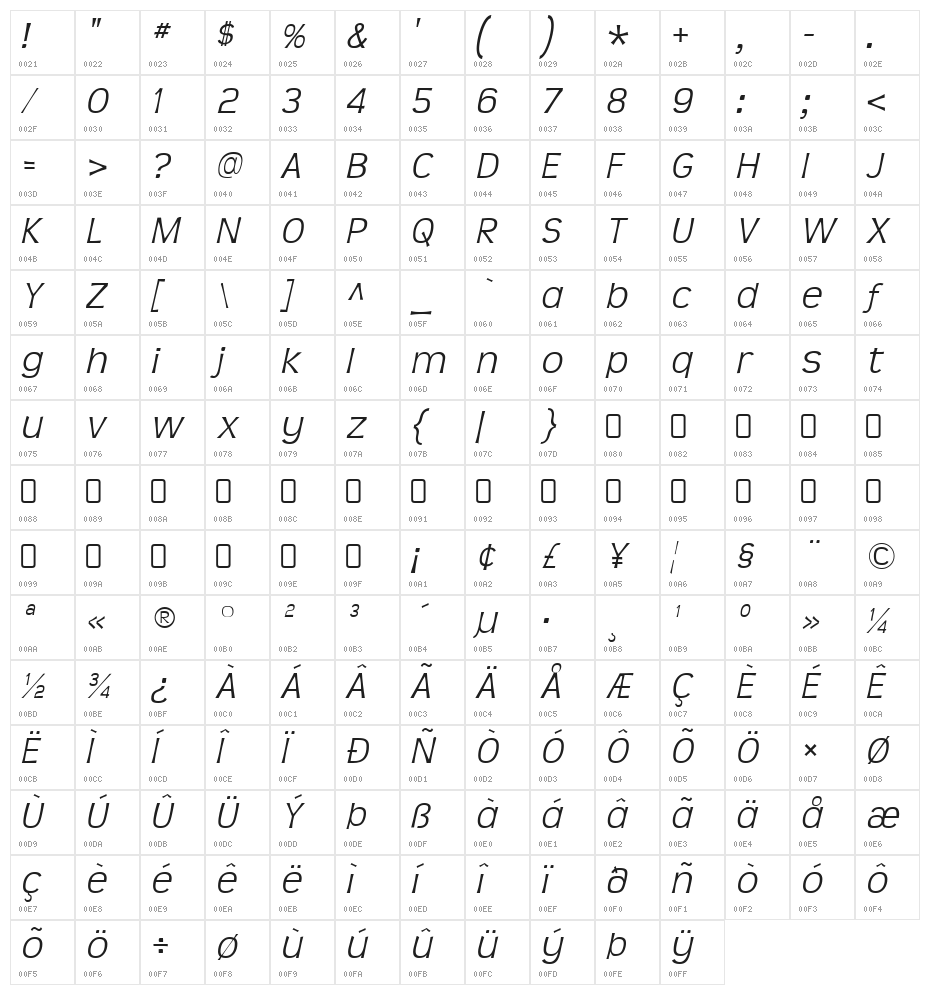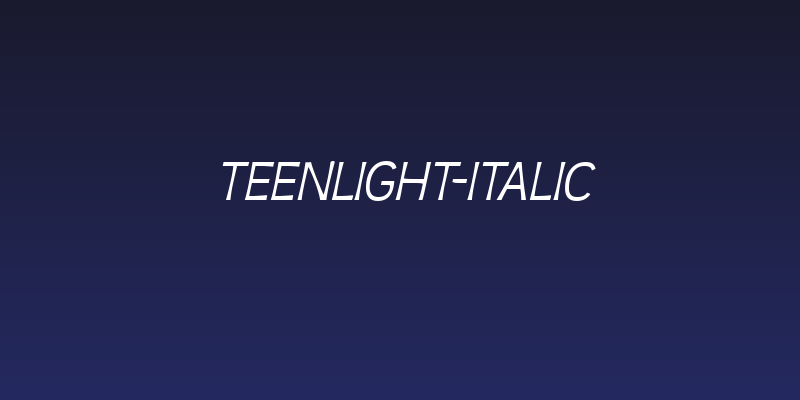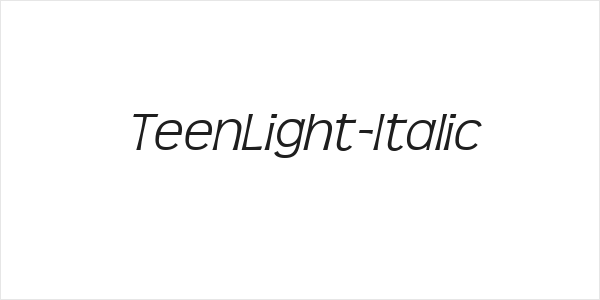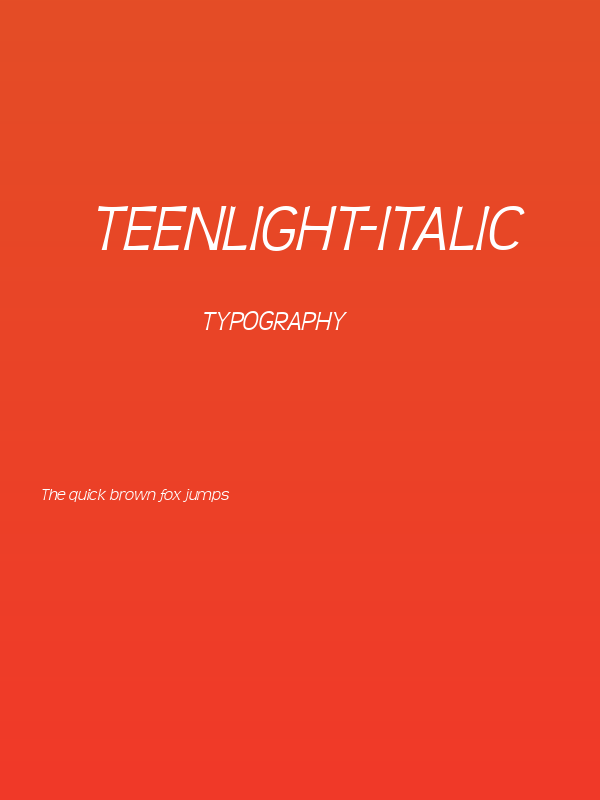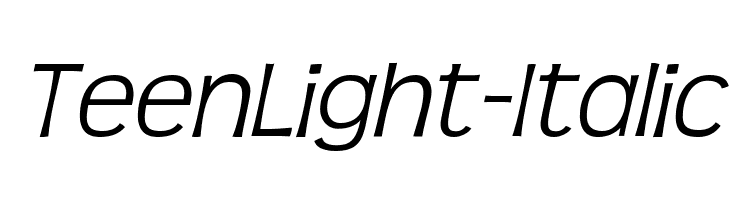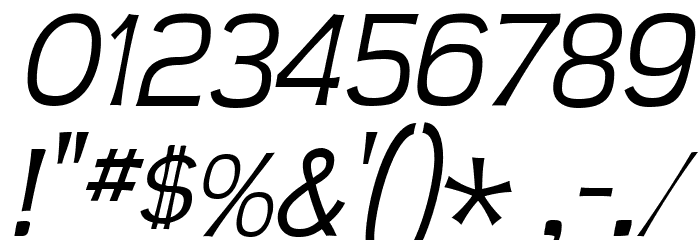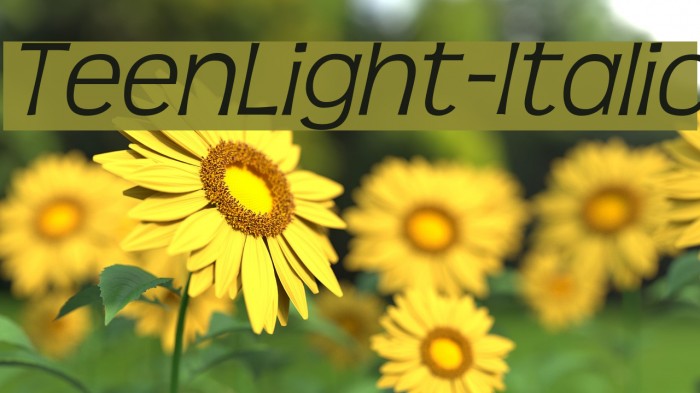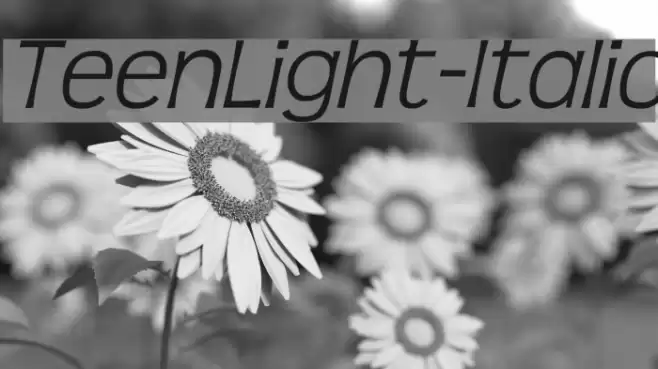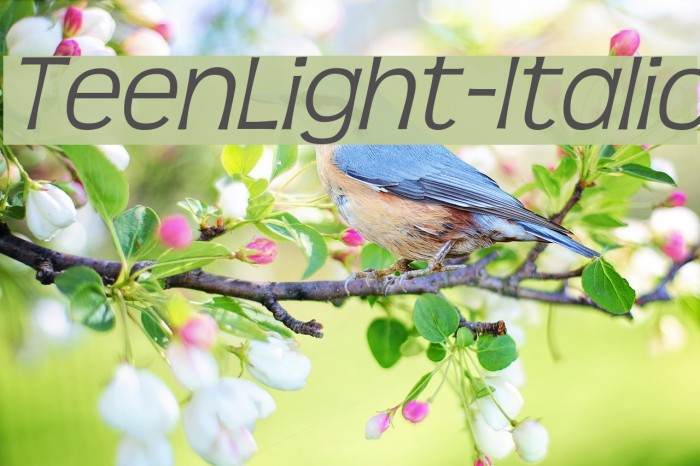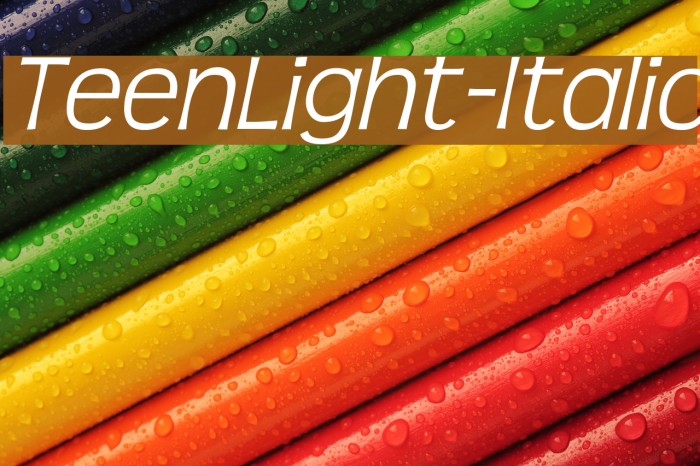
TeenLight-Italic Font
TeenLight-Italic Description
This font features a sleek and modern design with a subtle italic slant, giving it a dynamic and forward-moving appearance. The characters are crafted with a light weight, providing an airy and elegant feel. The sans-serif style ensures clean lines and a contemporary look, making it versatile for various design applications. The spacing between characters is normal, allowing for readability while maintaining a stylish aesthetic. The font exhibits medium contrast in stroke thickness, adding a touch of sophistication without compromising clarity. Its overall style is modern and suitable for projects that require a fresh and professional touch.
| Use Case | Headlines, Body text, Logos |
| Proposed Projects | Ideal for branding, advertising, digital media, and editorial design where a modern and elegant touch is desired. |